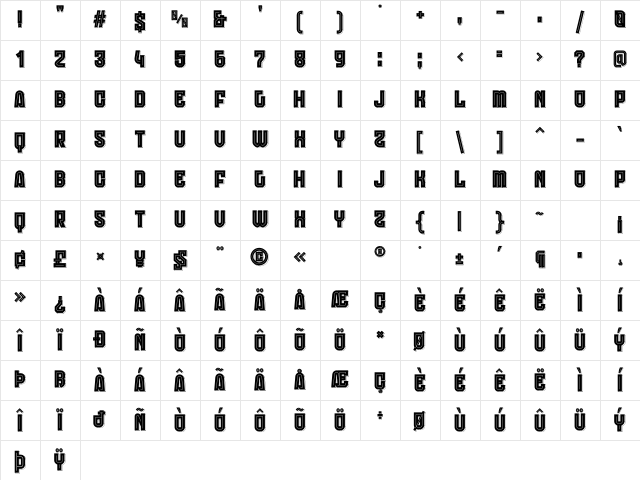
Anderlecht Round Inline 3D Free Font
Anderlecht Round Inline 3D
Style: Round Inline 3D
Foundry: Trequartista Studio
Designer: Muhammad Afif Ersya
Anderlecht Family
Anderlecht Round Inline 3D
Complete Anderlecht Round Inline 3D glyph index. Displaying only characters natively supported by Anderlecht Round Inline 3D font.
Design Context for Anderlecht
Anderlecht is built around its visual character rather than neutral utility - its distinctive forms are designed to make an impression at display sizes.
Font Pairing: Pair with a clean neutral sans-serif for body copy to let Anderlecht's character lead without overwhelming the composition.
Pro Tip: Use Anderlecht exclusively at display sizes - it was designed to be seen, not read at length. Let a neutral companion handle body copy.